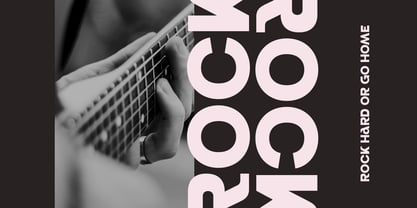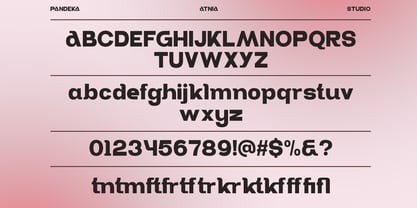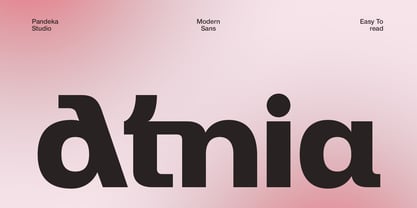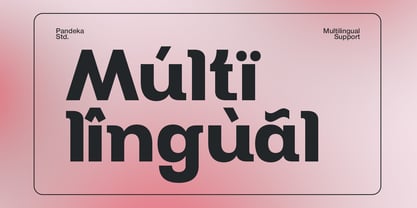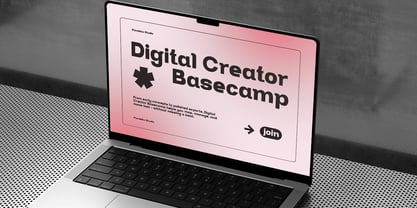
Atnia
by Pandeka Studio
The Atnia Font Family was designed by Sagara Nararya and published by Pandeka Studio. Atnia contains 1 styles.
Atnia is a clean and modern geometric sans-serif font designed with simplicity and precision in mind. Its balanced letterforms and smooth curves make it a perfect choice for contemporary branding, editorial layouts, web design, and digital interfaces. Atnia embraces a minimal aesthetic that communicates clarity, professionalism, and modern sophistication in every composition. This font includes 1 style: Regular, complete with uppercase and lowercase letters, numbers, punctuation, and multilingual support. Atnia’s timeless structure and geometric balance make it ideal for logos, posters, headlines, and creative projects that require a sleek and modern typographic look. What’s Included: Main Files formats 1 Style: Regular Full Character Set: Uppercase, lowercase, numbers, symbols, and punctuation Easy to Use: Works on both PC & Mac Compatible with Adobe Illustrator, Photoshop, Microsoft Word, Canva, and more PUA Encoded: Fully accessible without additional software Language Support: Danish, English, Estonian, Filipino, Finnish, French, Friulian, Galician, German, Gusii, Indonesian, Irish, Italian, Luxembourgish, Norwegian Bokmål, Norwegian Nynorsk, Nyankole, Oromo, Portuguese, Romansh, Rombo, Spanish, Swedish, Swiss-German, Uzbek (Latin) Minimal Modern Geometric Font Clean Typography Sleek Lettering Contemporary Design Stylish Aesthetic Elegant Typeface Thank you and happy designing! Pandeka Studio